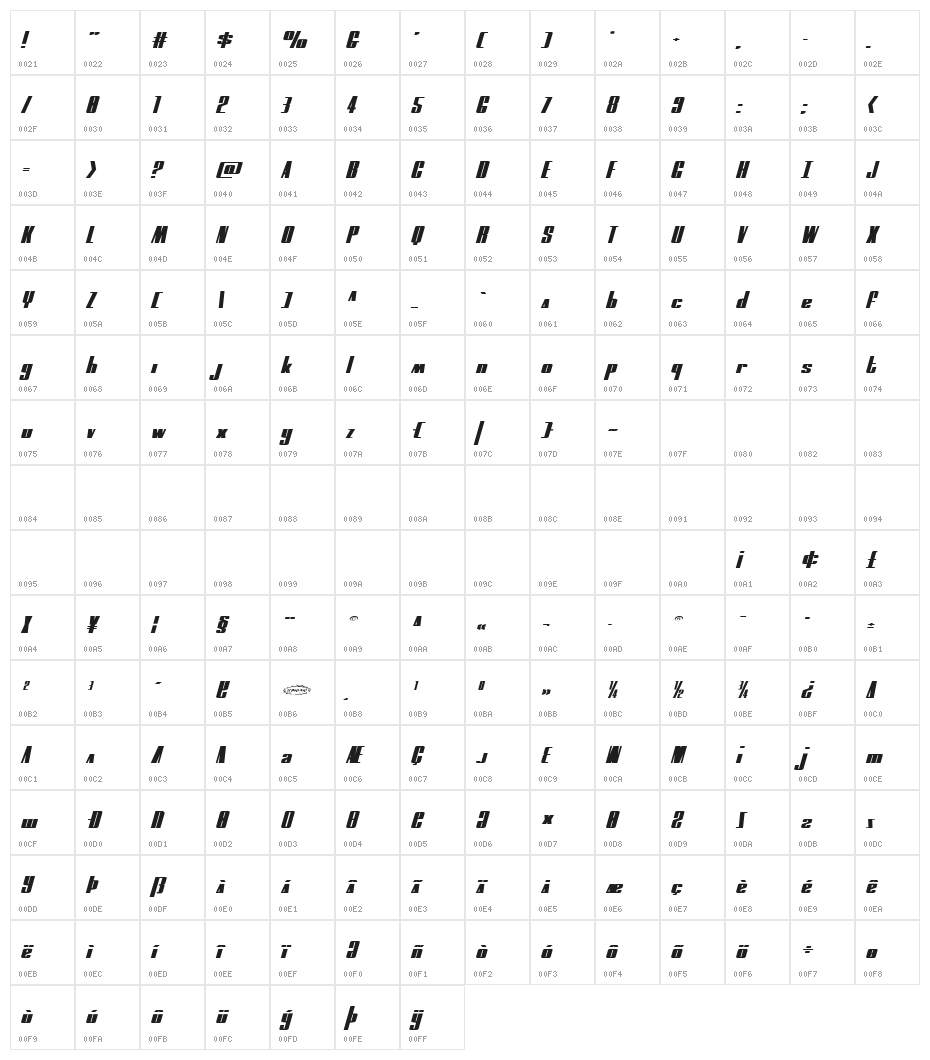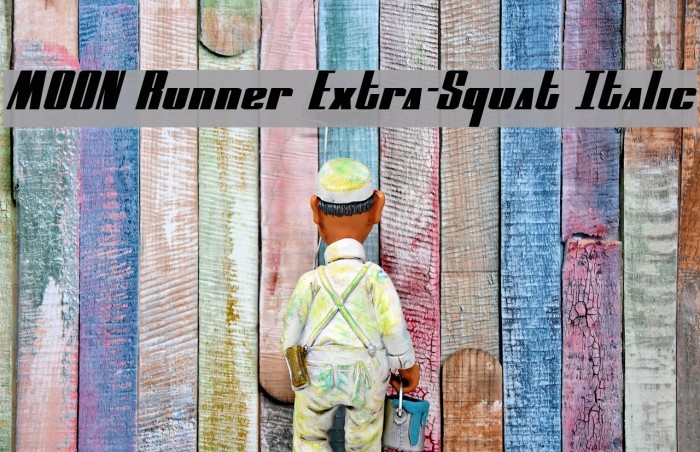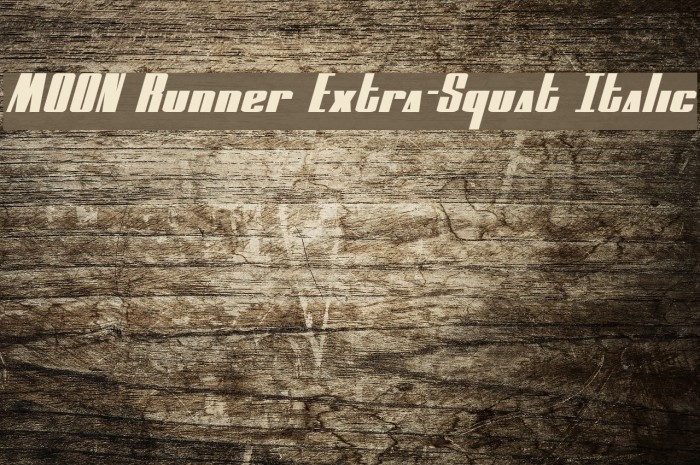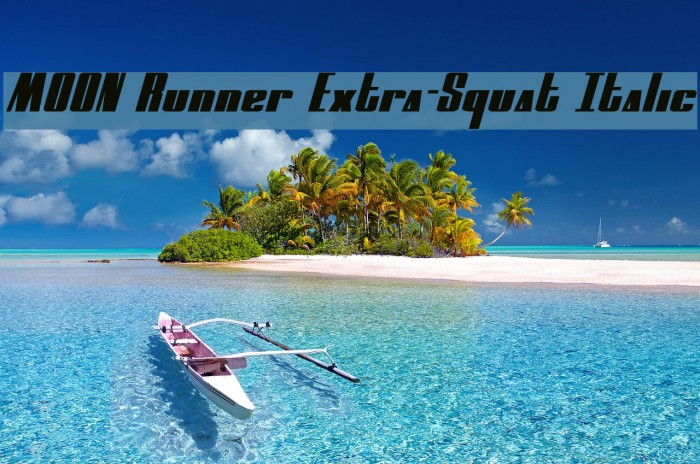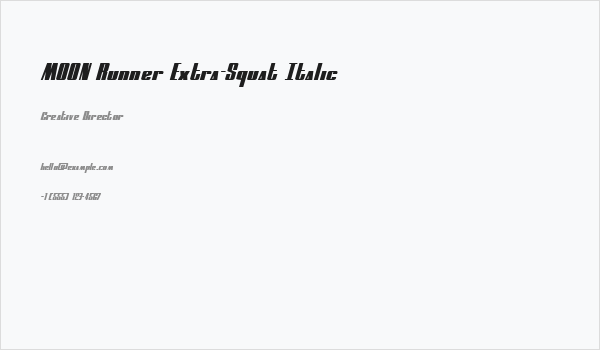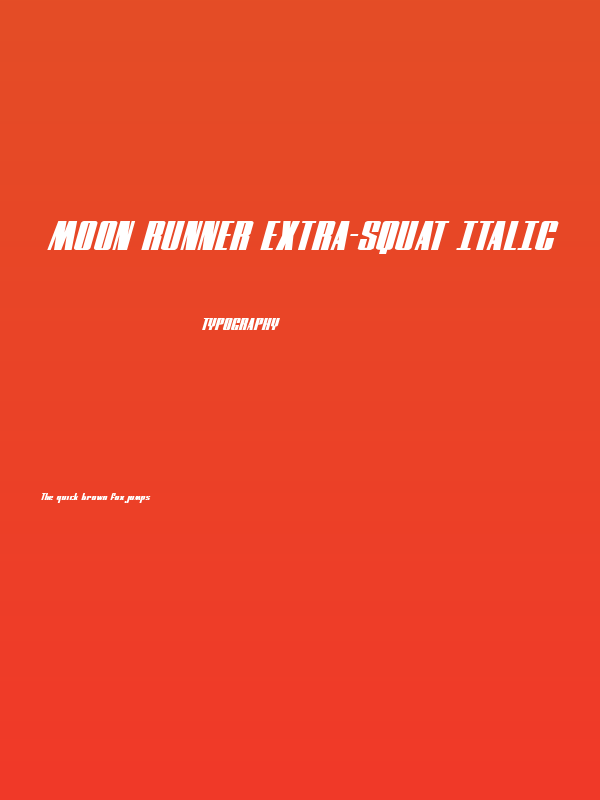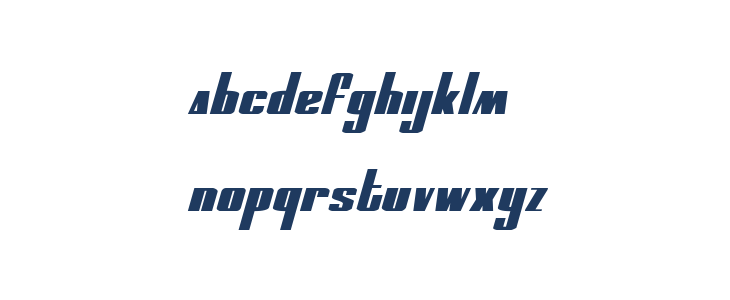
MOON Runner Extra-Squat Italic Font
MOON Runner Extra-Squat Italic Description
This font features a bold and dynamic style with a strong italic slant, giving it a sense of motion and energy. The characters are wide and squat, with a distinctive geometric design that emphasizes sharp angles and clean lines. The uppercase letters are particularly striking, with a commanding presence that makes them ideal for attention-grabbing headlines. The lowercase letters maintain the same boldness and angularity, ensuring consistency across text. Numbers and special characters are designed with the same bold, italicized style, making them suitable for a variety of uses. Overall, this font exudes a modern and sporty aesthetic, perfect for projects that require a touch of dynamism and flair.